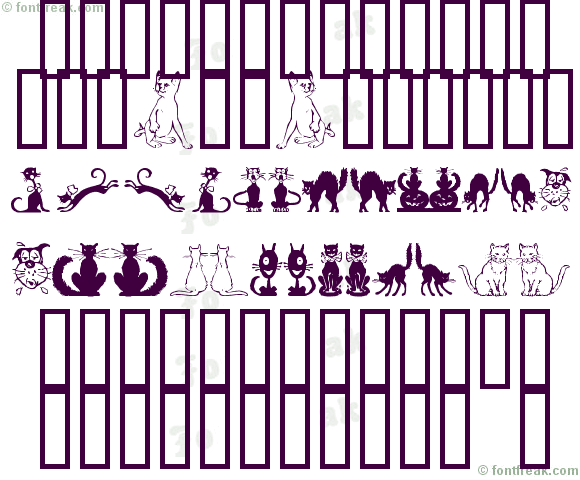
Border Cats
The Border Cats font, crafted by Listemageren in 1997, is a captivating decorative typeface that brings a playful and whimsical touch to any design project. This font falls into the category of decorative fonts, characterized by its charming illustrations of cats that serve as unique border elements. With a mix of thick and thin strokes, the font features a delightful contrast that makes it visually engaging. The spacing is well-balanced, allowing the feline designs to stand out while maintaining legibility, making it perfect for creative applications.
Border Cats is an ideal choice for various use cases, such as greeting cards, children's book covers, playful party invitations, and even website banners that aim to capture a sense of fun and warmth. Graphic designers will find it especially useful when looking to add character to their projects, while small business owners can use it for branding or promotional materials that require a lighthearted appeal.
What sets the Border Cats font apart is its ability to evoke joy and nostalgia through its playful design. The charming cat illustrations add a distinct personality that can transform ordinary text into an engaging visual experience. Whether used in a whimsical project or as a decorative element, this font is sure to leave a lasting impression on its audience.